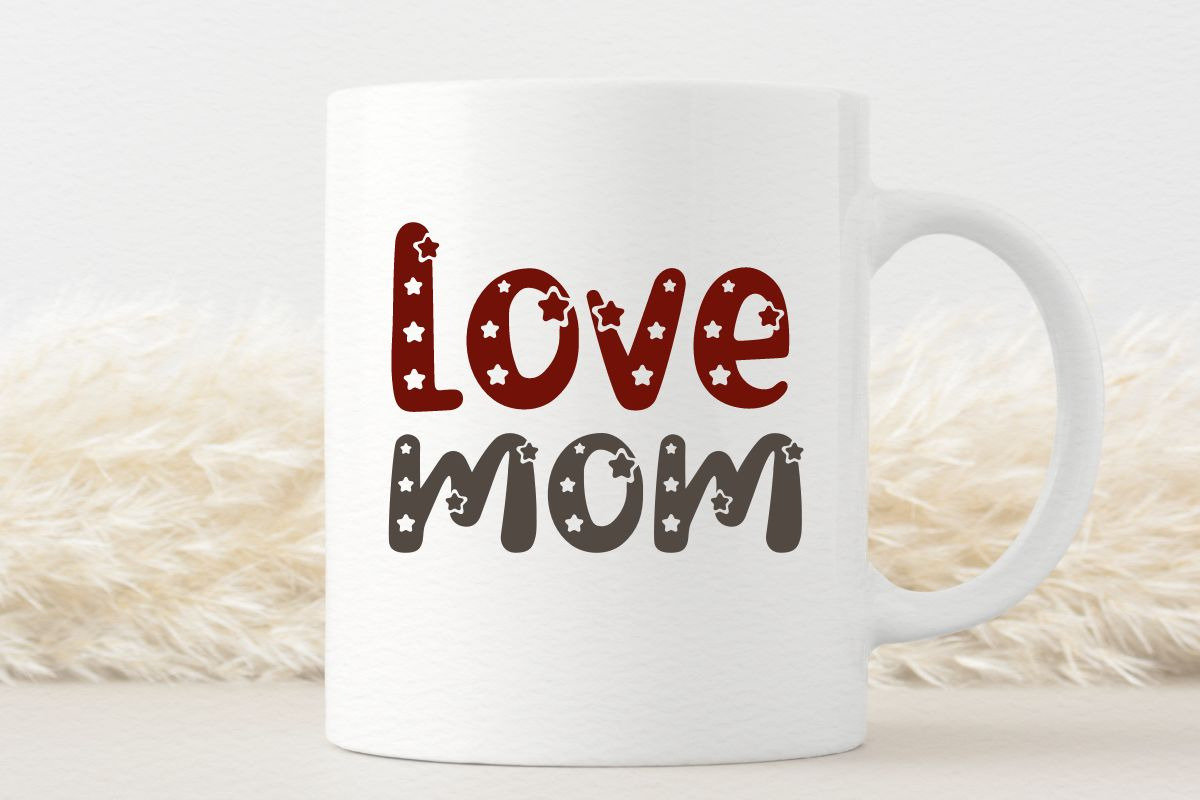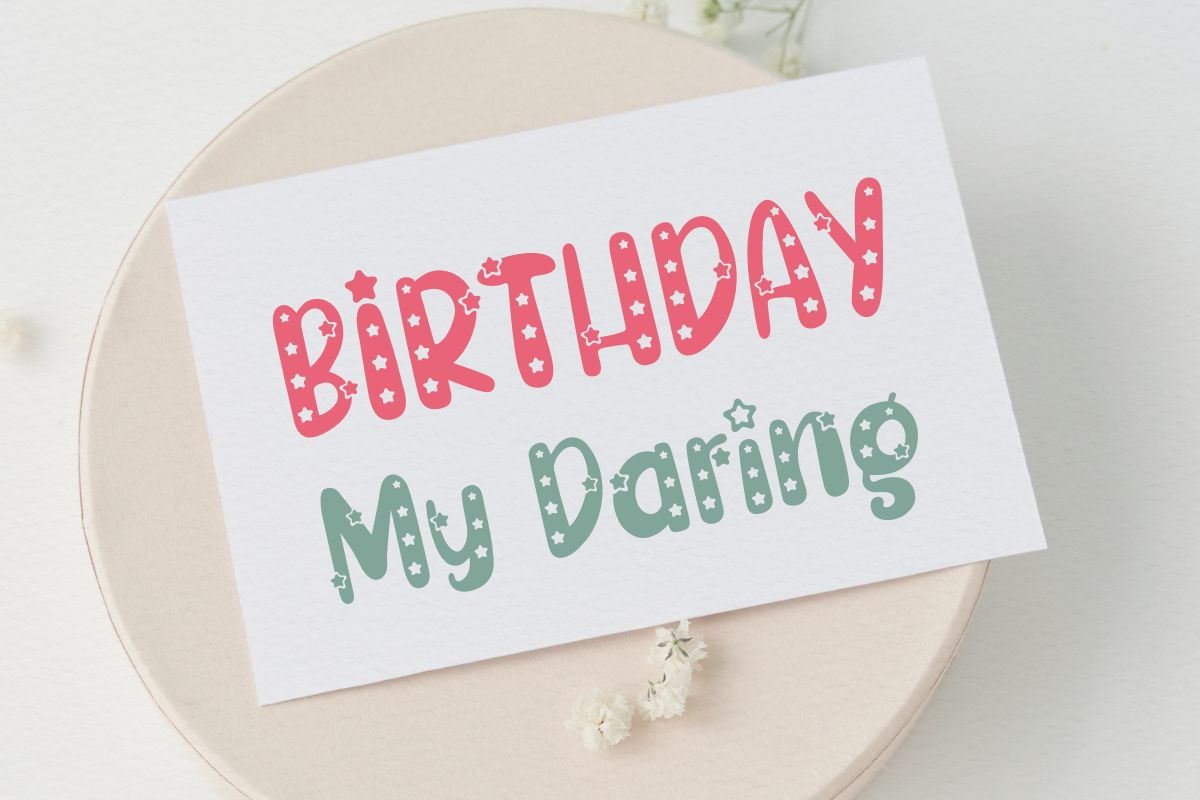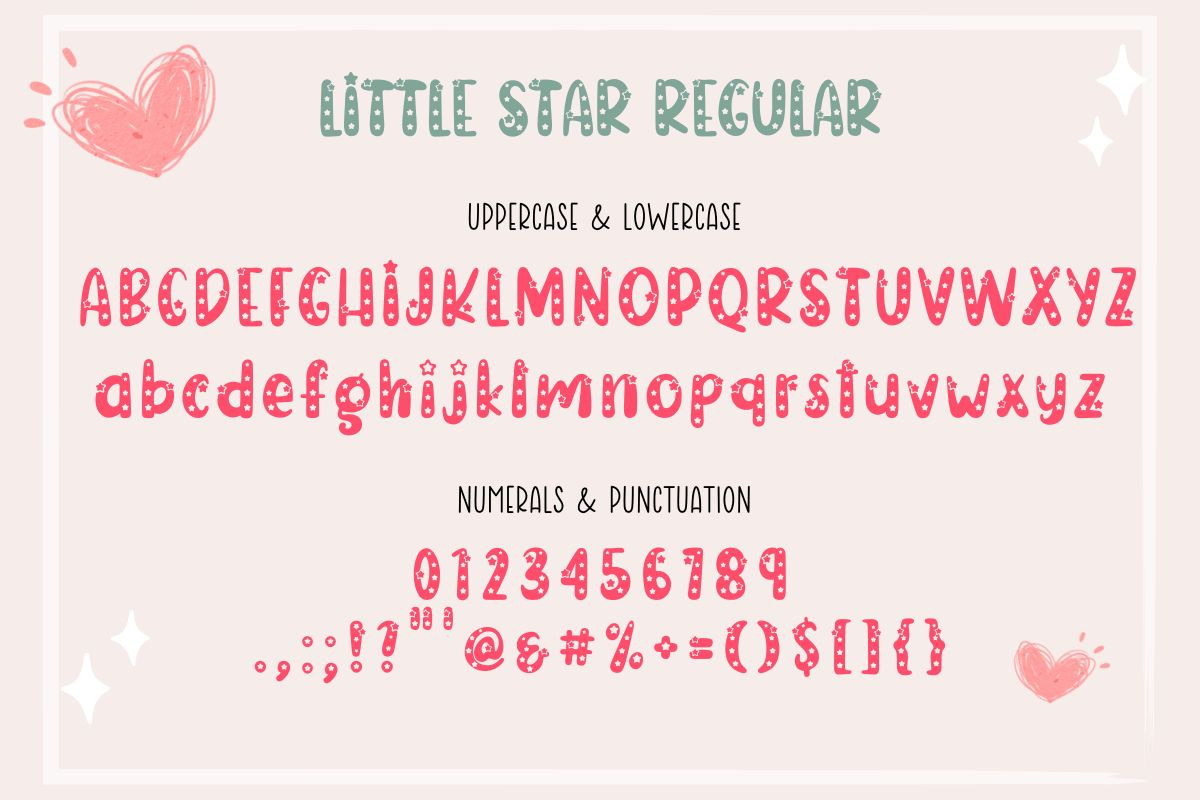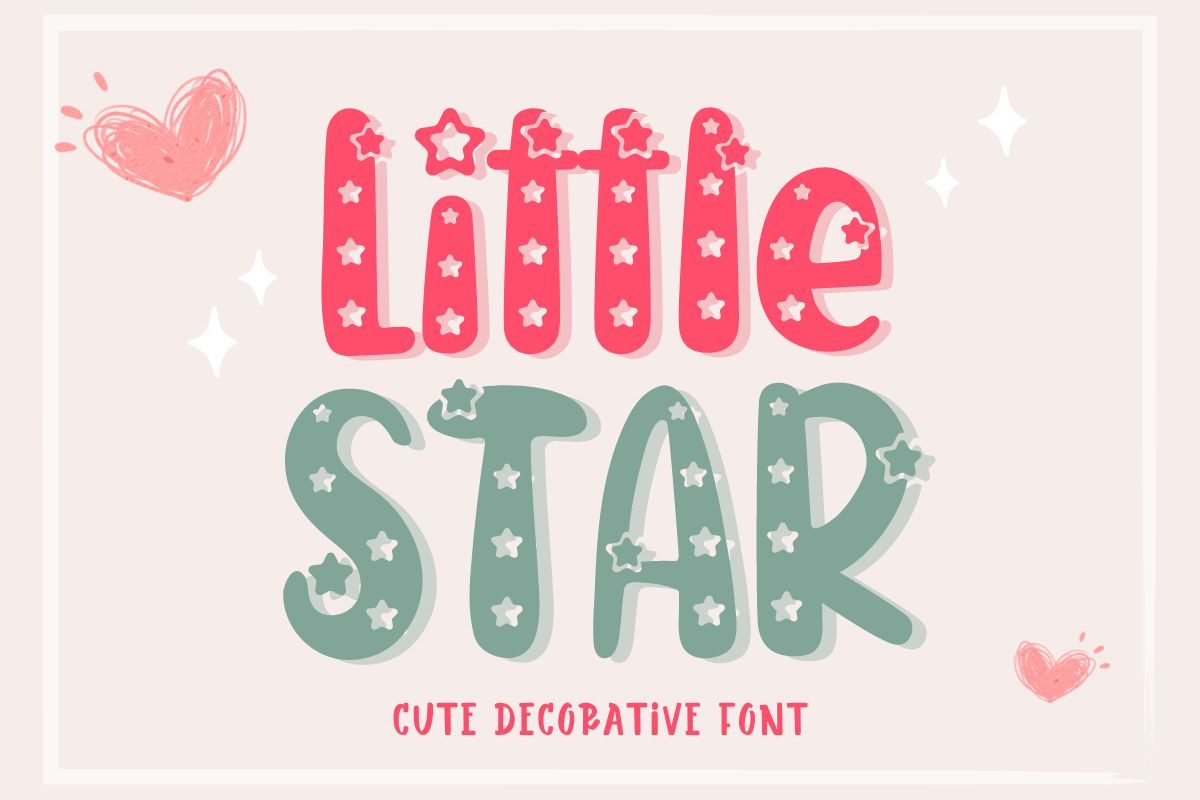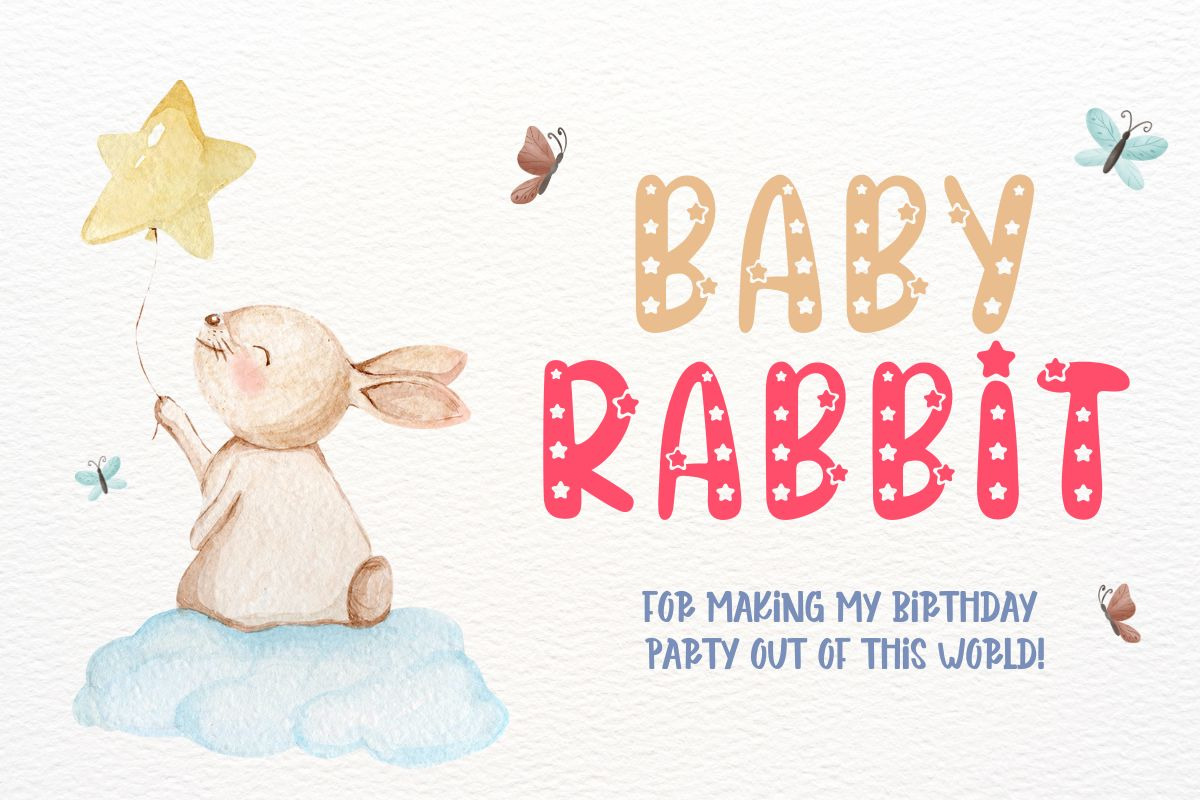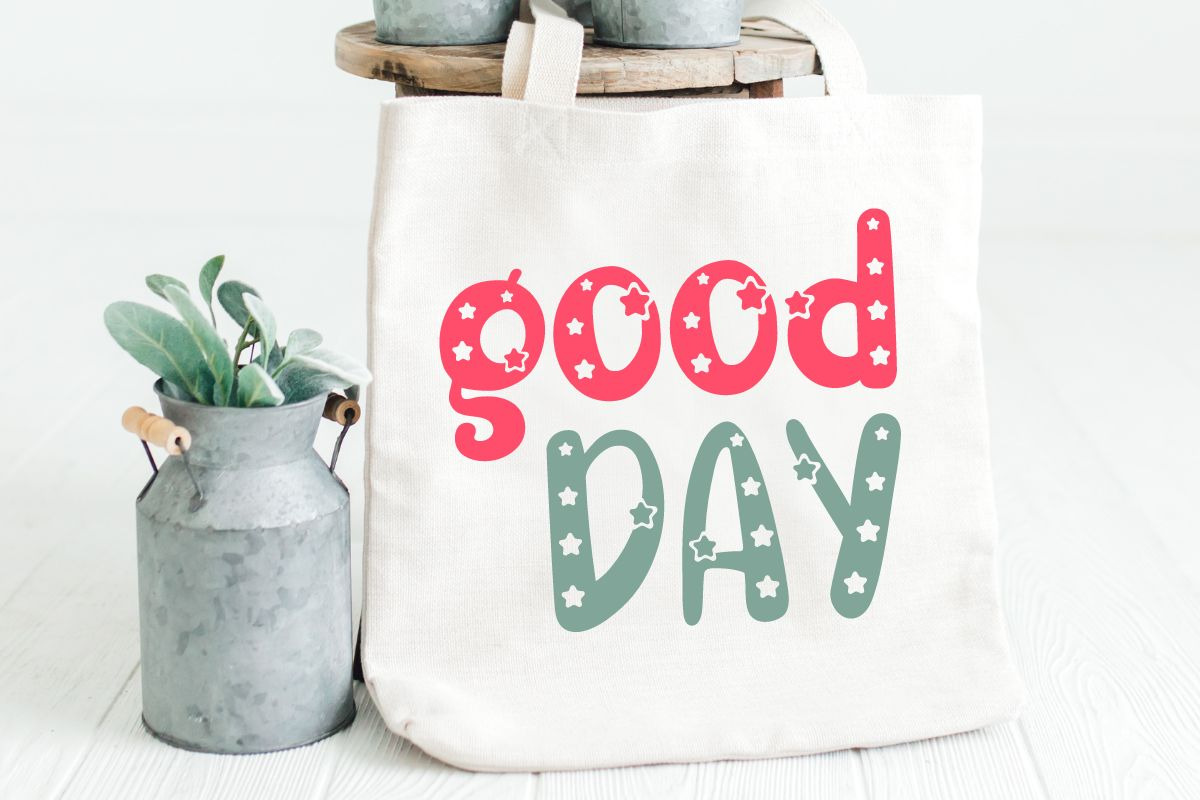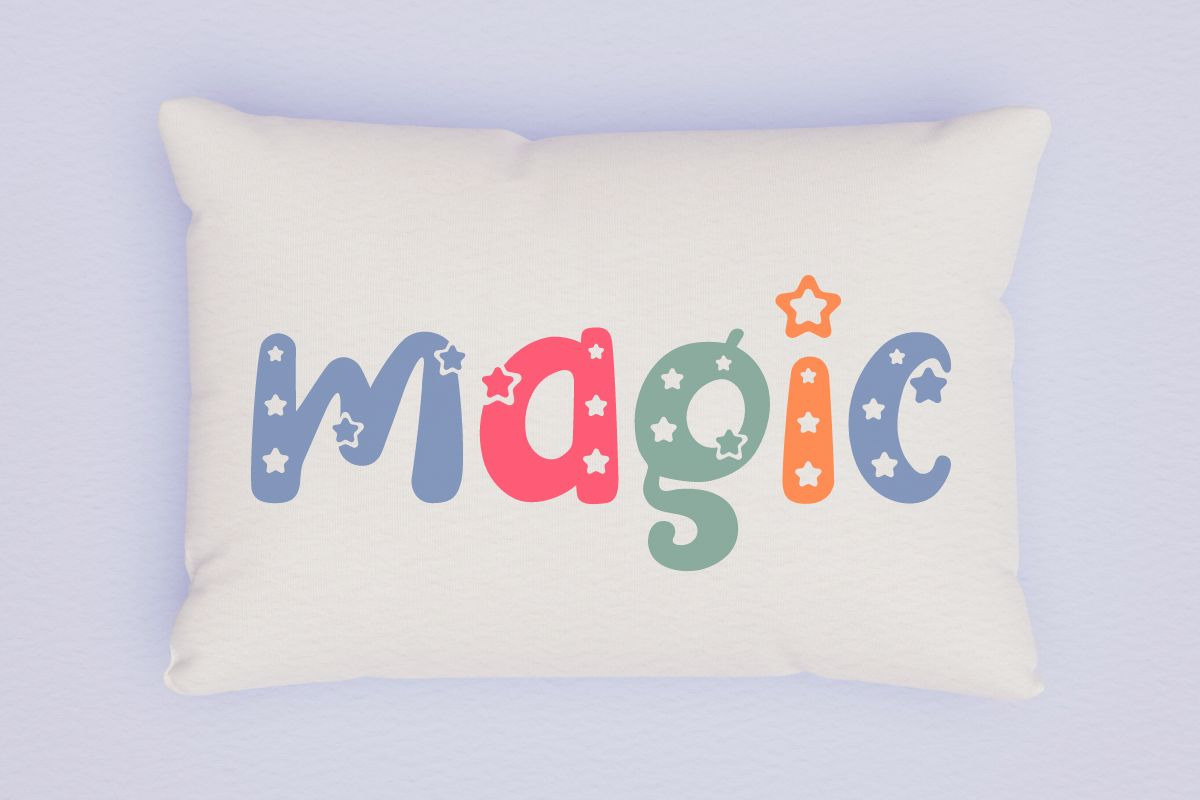
Little Star - Cute Display Font by Anningarts | Creative Market
Introducing the adorable and charming Little Star font. This cute decorative font combines handwritten elements with little stars, creating a whimsical and playful design. You will receive 3 Files: 1. -.ttf file 1 file. 2. -.otf file 1 file. 3. -.woff file 1 file. Thank you for supporting ! | Little Star - Cute Display Font | AnningArts